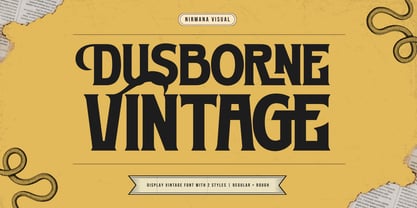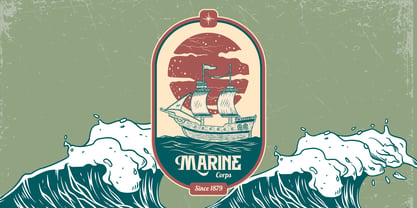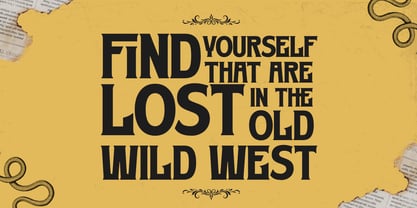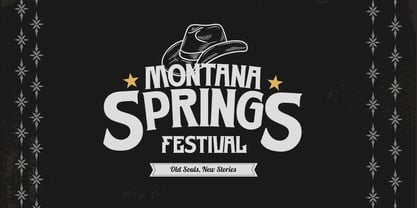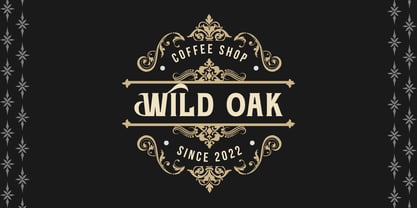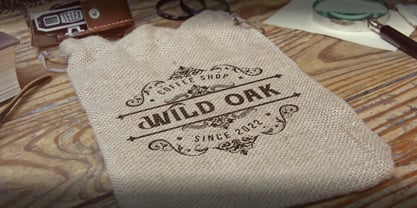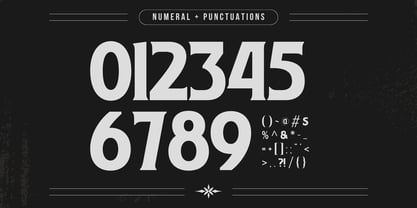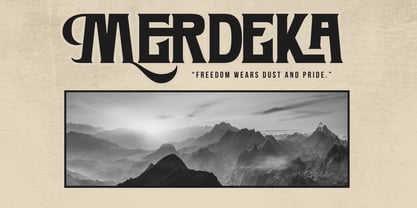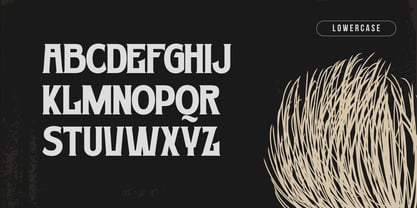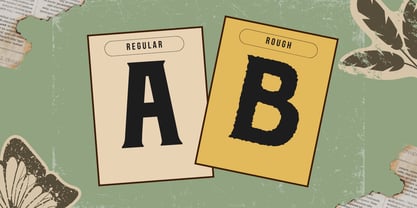
Dusborne Vintage
by Nirmana Visual
The Dusborne Vintage Font Family was designed by Sigit Dwipa and published by Nirmana Visual. Dusborne Vintage contains 2 styles and family package options. More about this family
Dusborne Vintage is a classic-inspired font crafted for timeless branding. Available in Regular and Rough styles, it brings an authentic retro charm perfect for vintage products, logos, badges, and packaging. Its bold character shapes and textured details deliver a warm nostalgic feel, making every design stand out with heritage appeal. Ideal for labels, posters, apparel branding, and anything that needs a strong vintage identity.